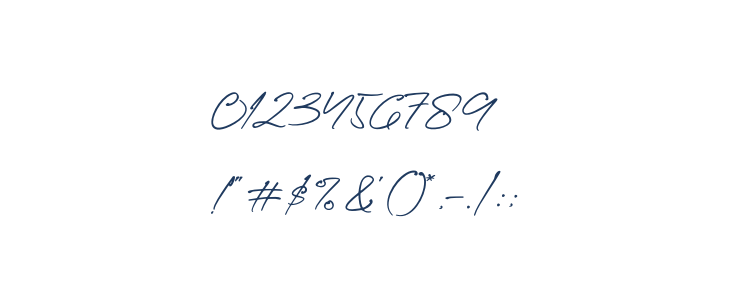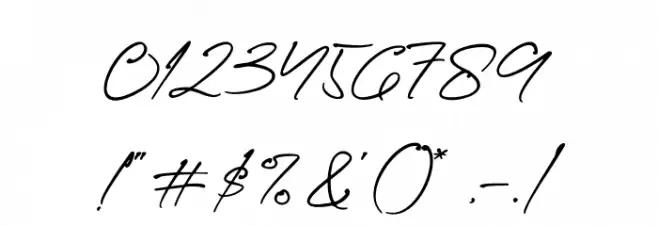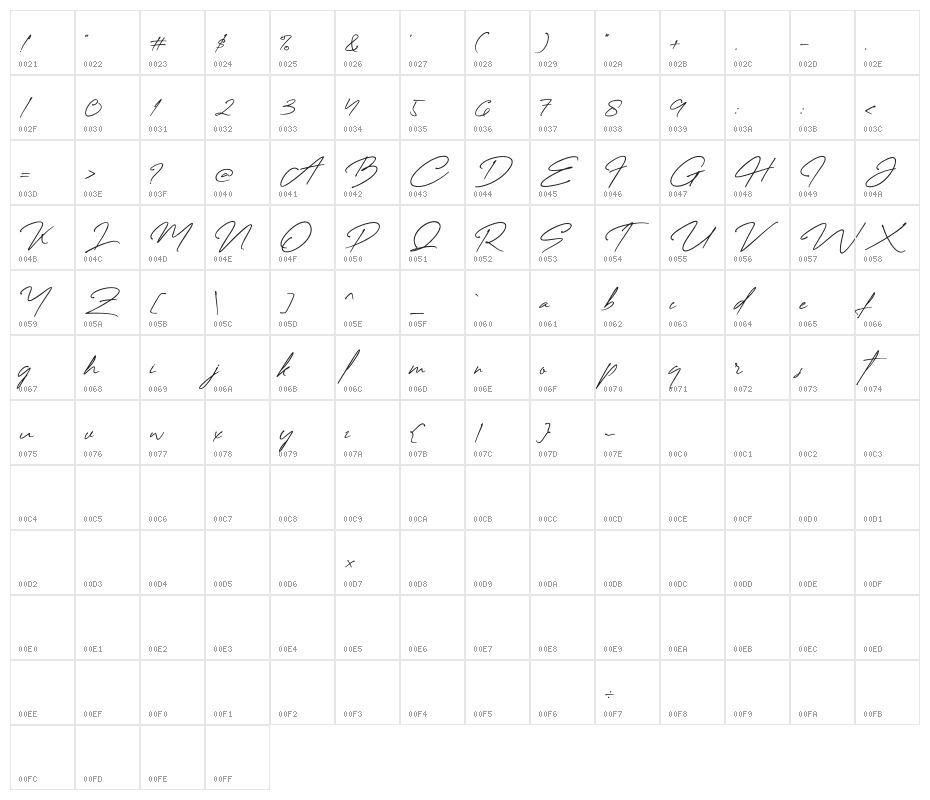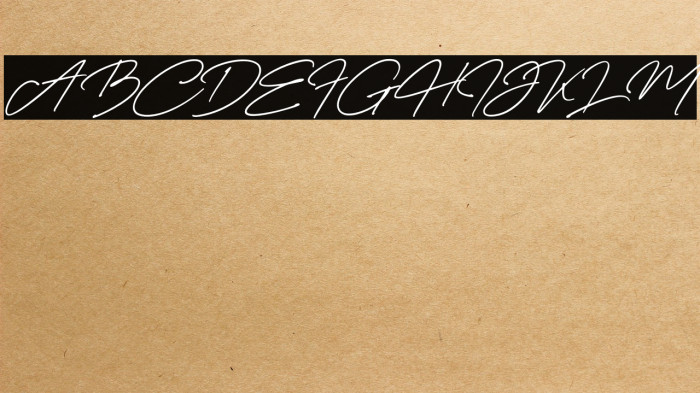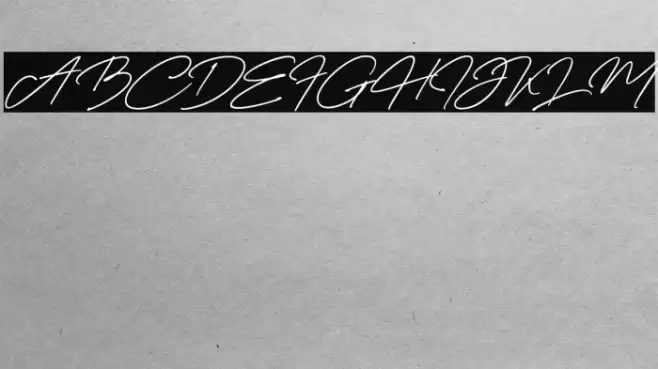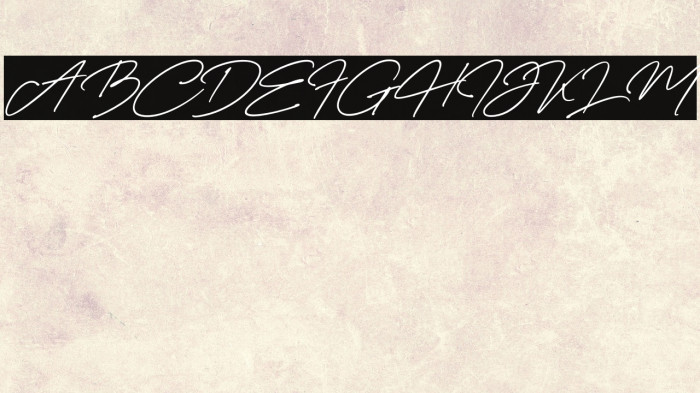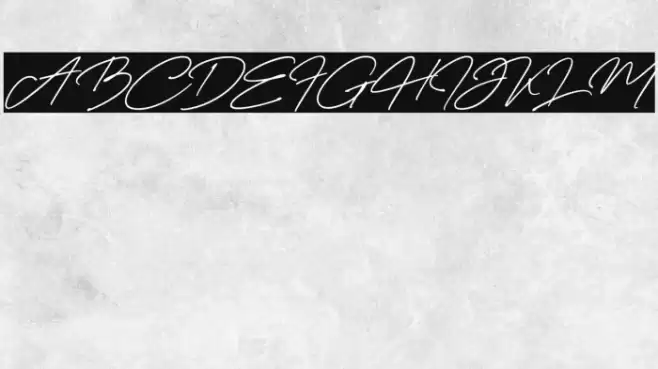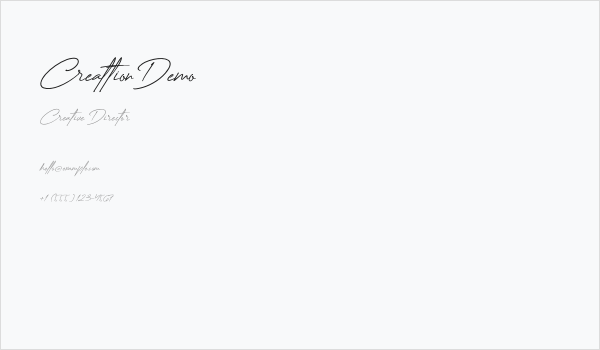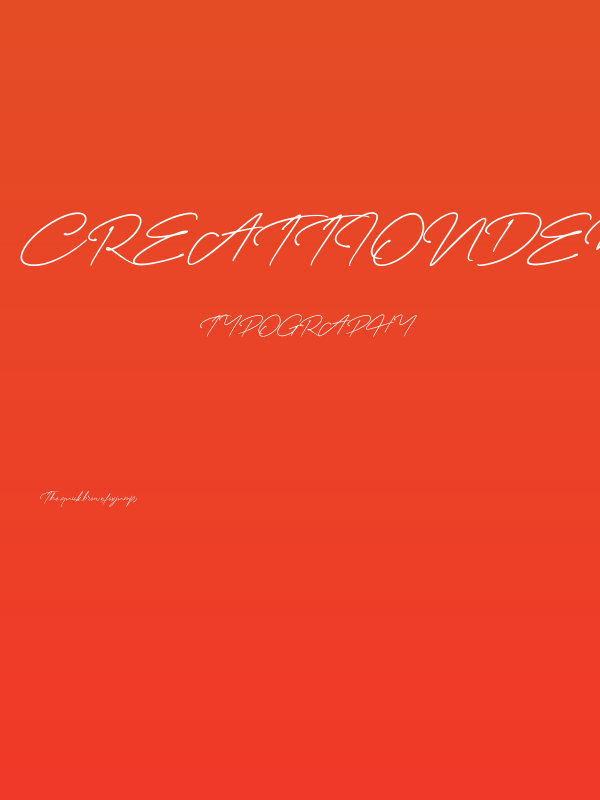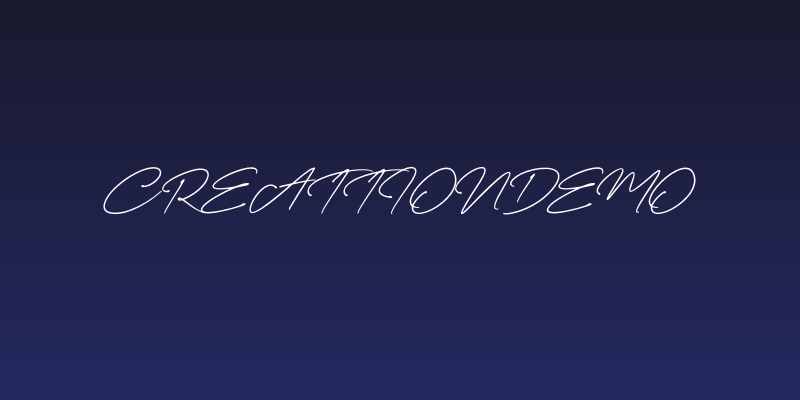
CreattionDemo Font
CreattionDemo Description
This font exudes a dynamic and fluid handwritten style, characterized by its elegant cursive strokes and natural flow. The uppercase letters are bold and sweeping, with a distinct slant that adds a sense of motion and sophistication. The lowercase letters maintain a consistent style, with smooth connections and a slightly more compact form. Numbers and special characters follow the same fluid aesthetic, ensuring a cohesive look across all text. The overall appearance is both artistic and legible, making it suitable for a variety of creative applications.
| Proposed Projects | Ideal for wedding invitations, personal branding, artistic projects, and elegant stationery. |